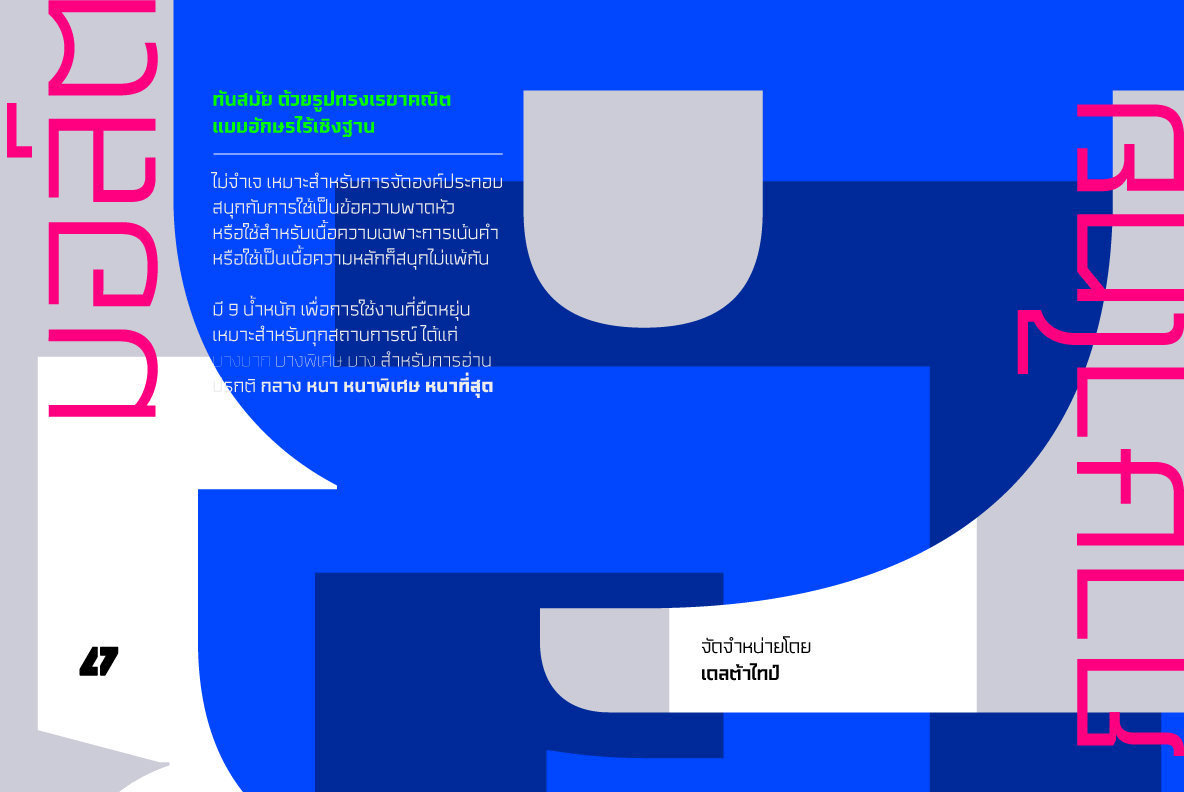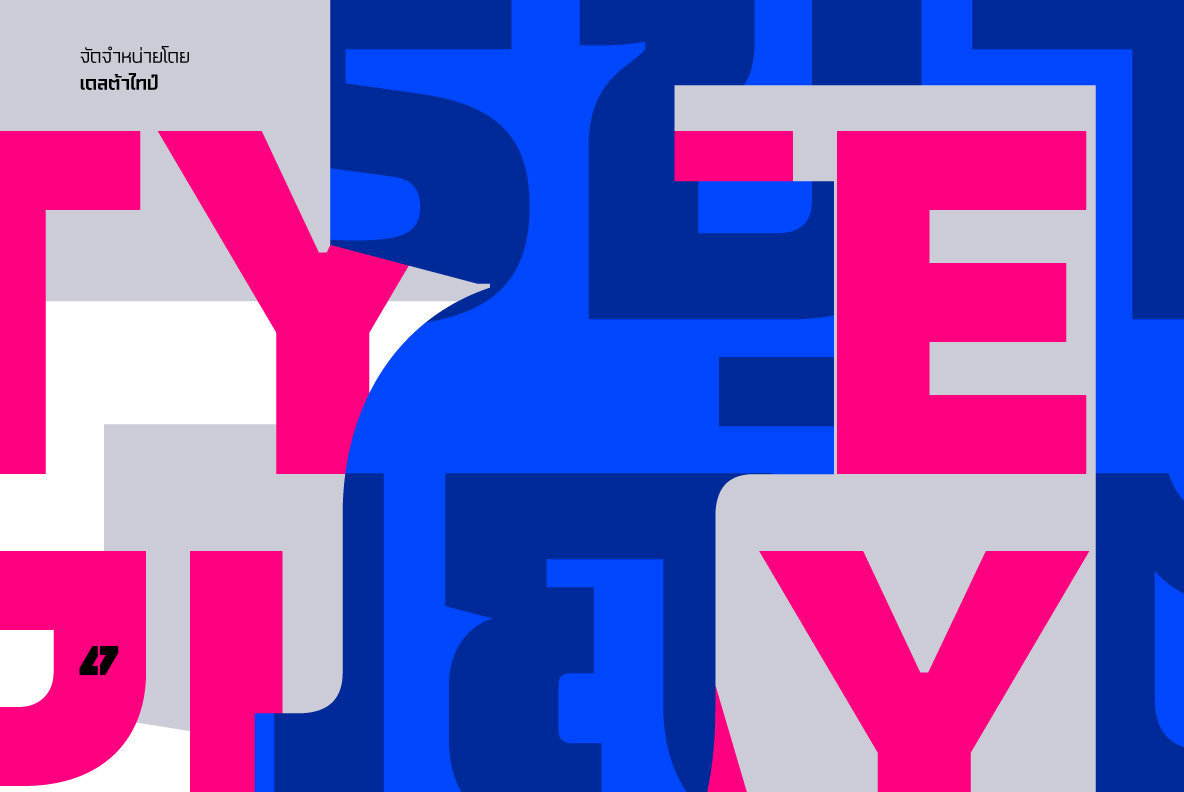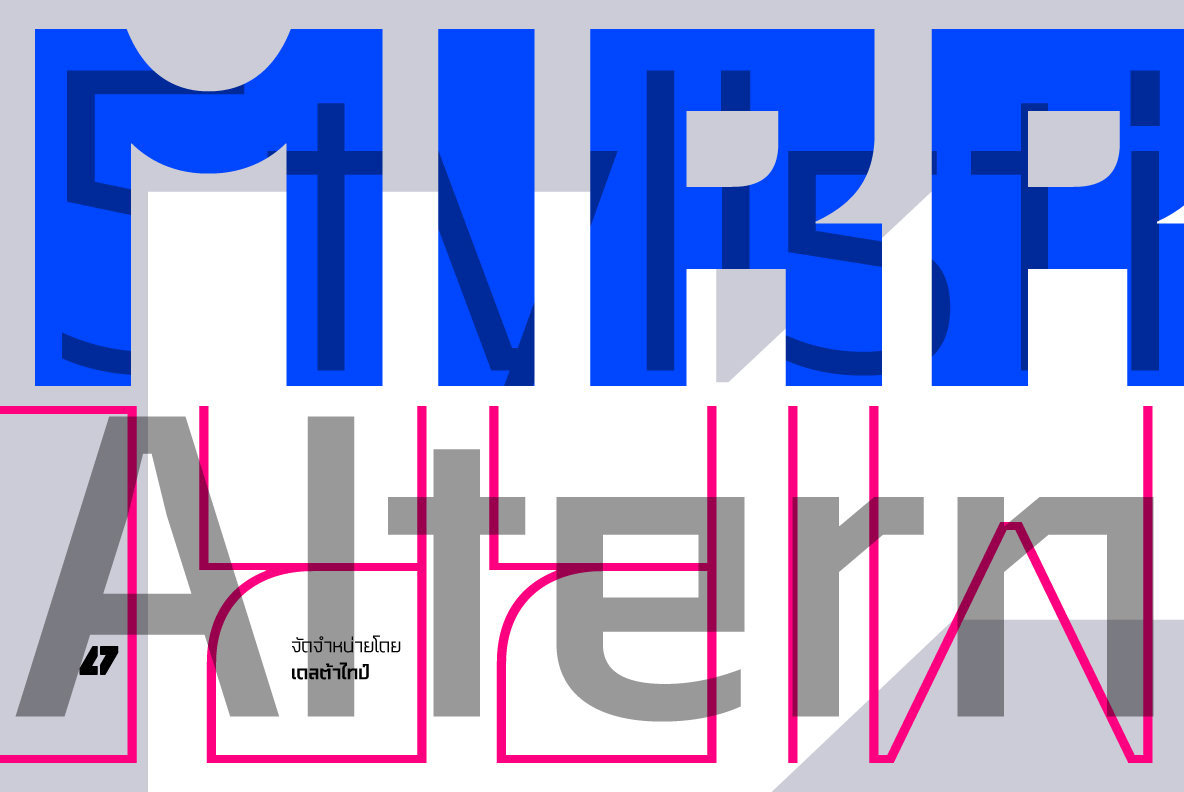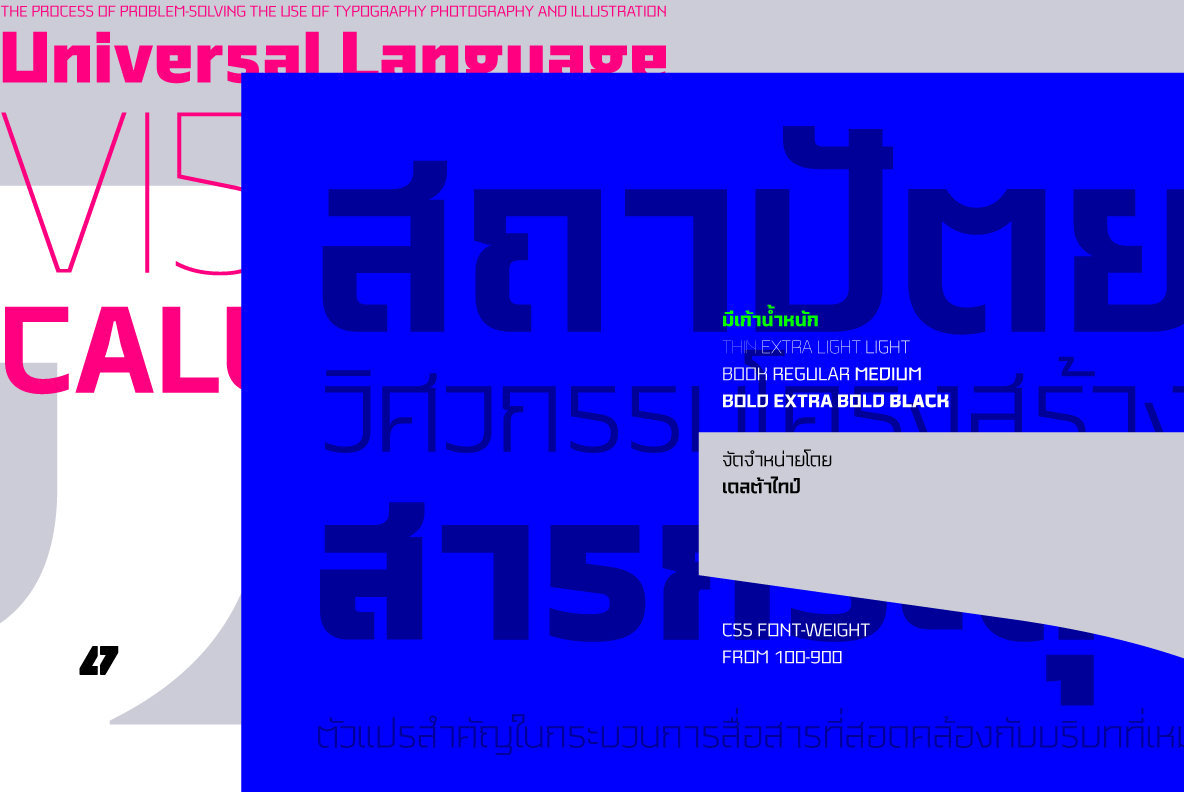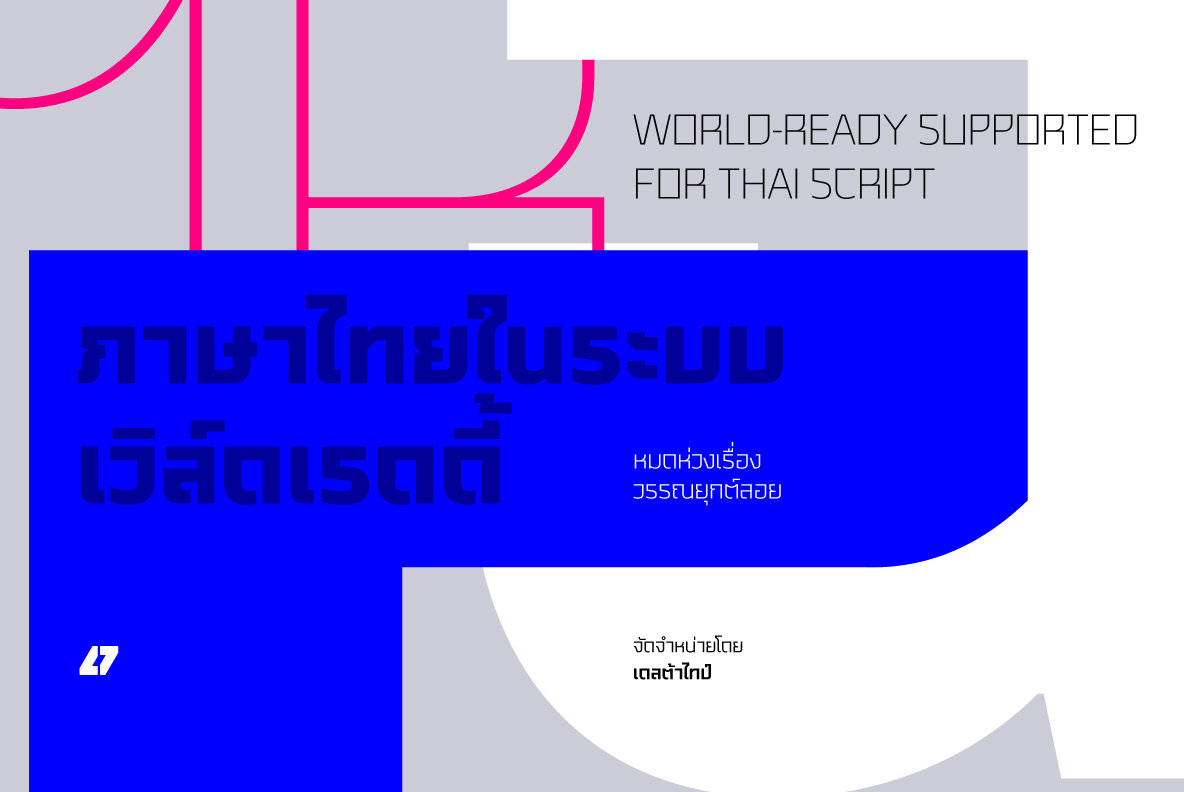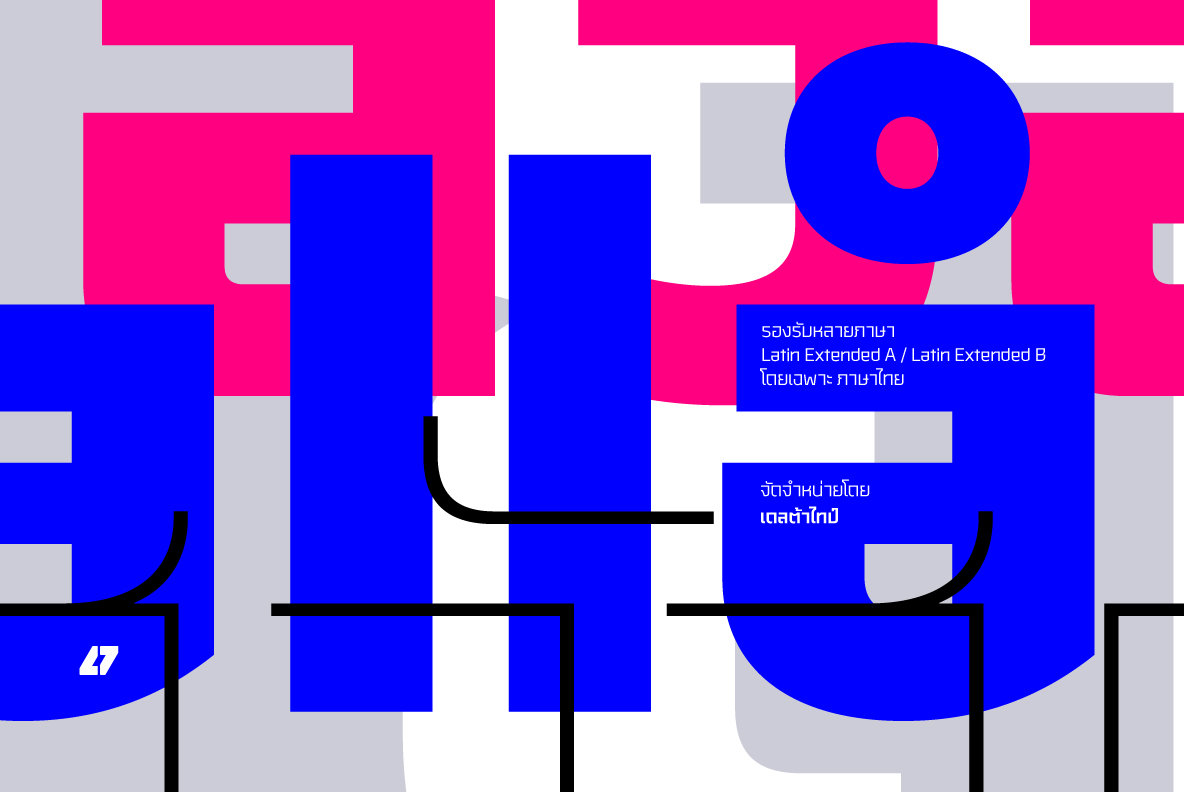
Malte Thai 1
Malte Thai is a geometric sans-serif typeface, inspired from the modern age. Designed to use as type play, headline, quote and for composition. Malte come with nine weights that mappings to CSS font weights. Malte supported many languages as included extend latin glyphs. This package included Thai scripts.
Deltatype is a Thai type design studio known for its innovative approach to the Thai alphabet, crafting modern fonts that honor the language's unique visual character. Their work responds to the evolving role of typography in Thai design, where letterforms often serve as expressive design components, not just...